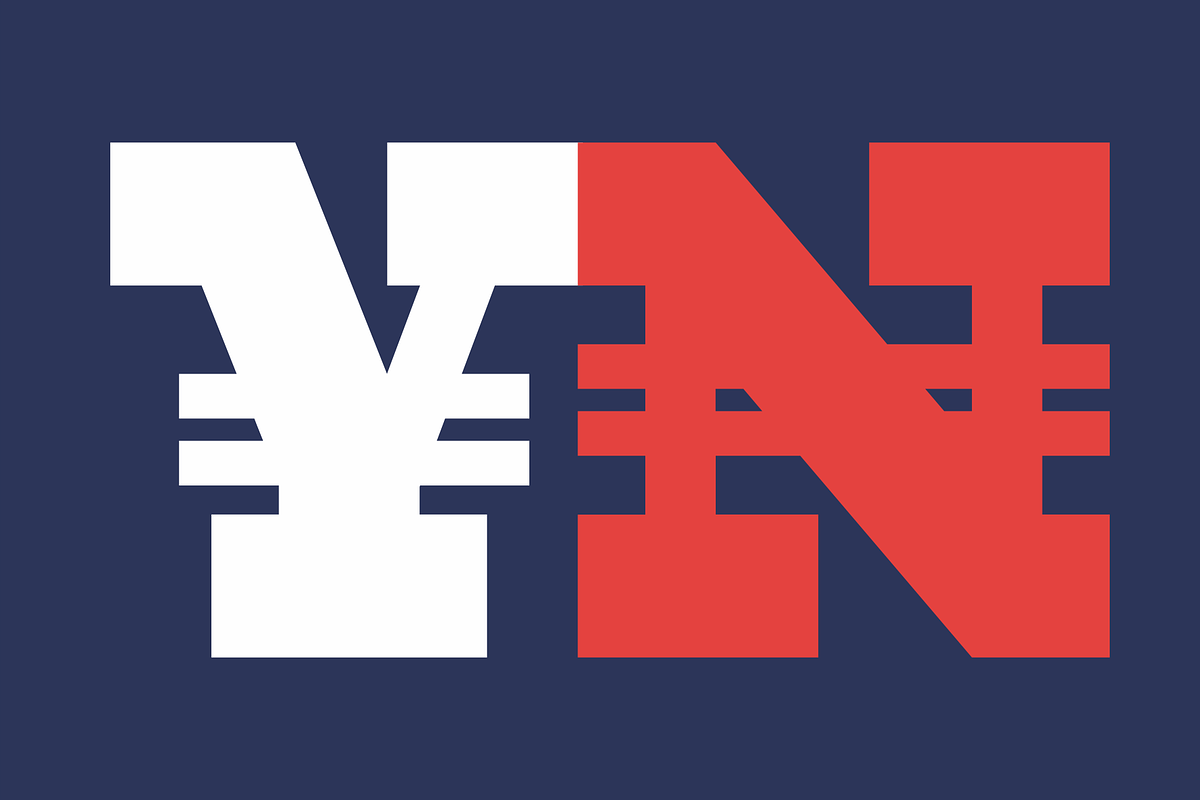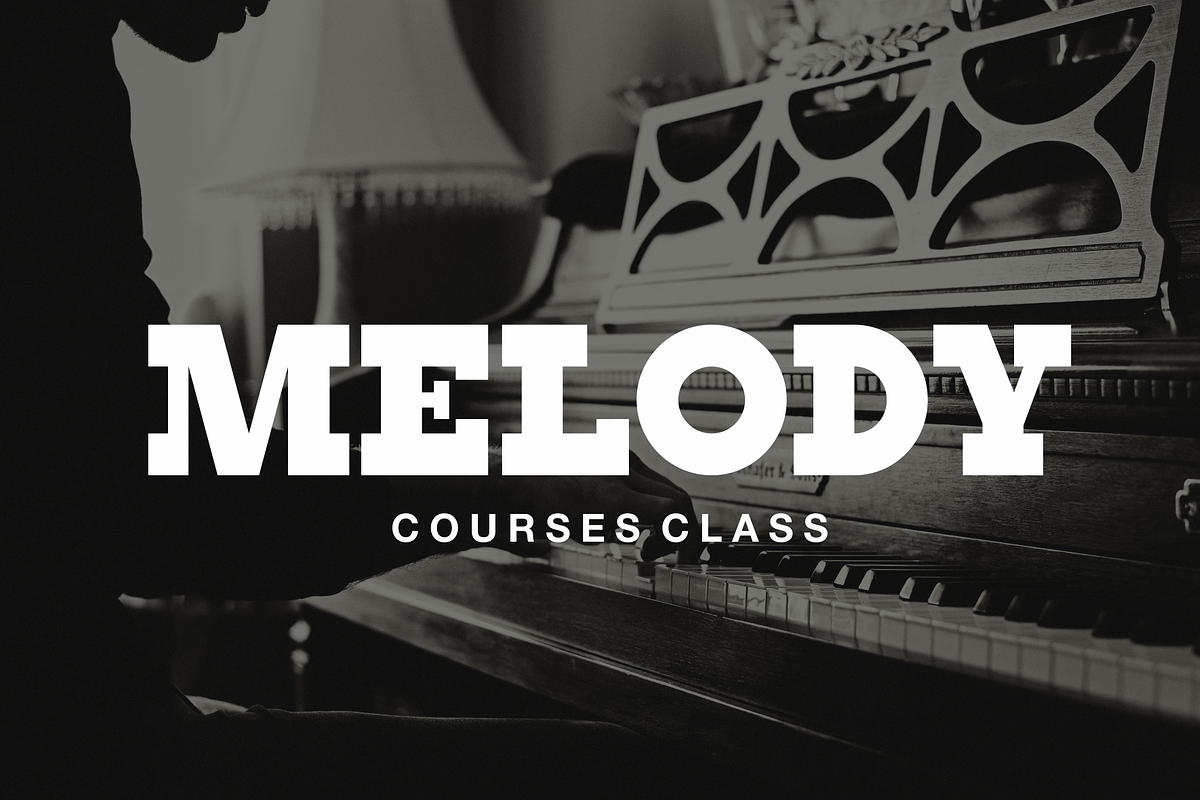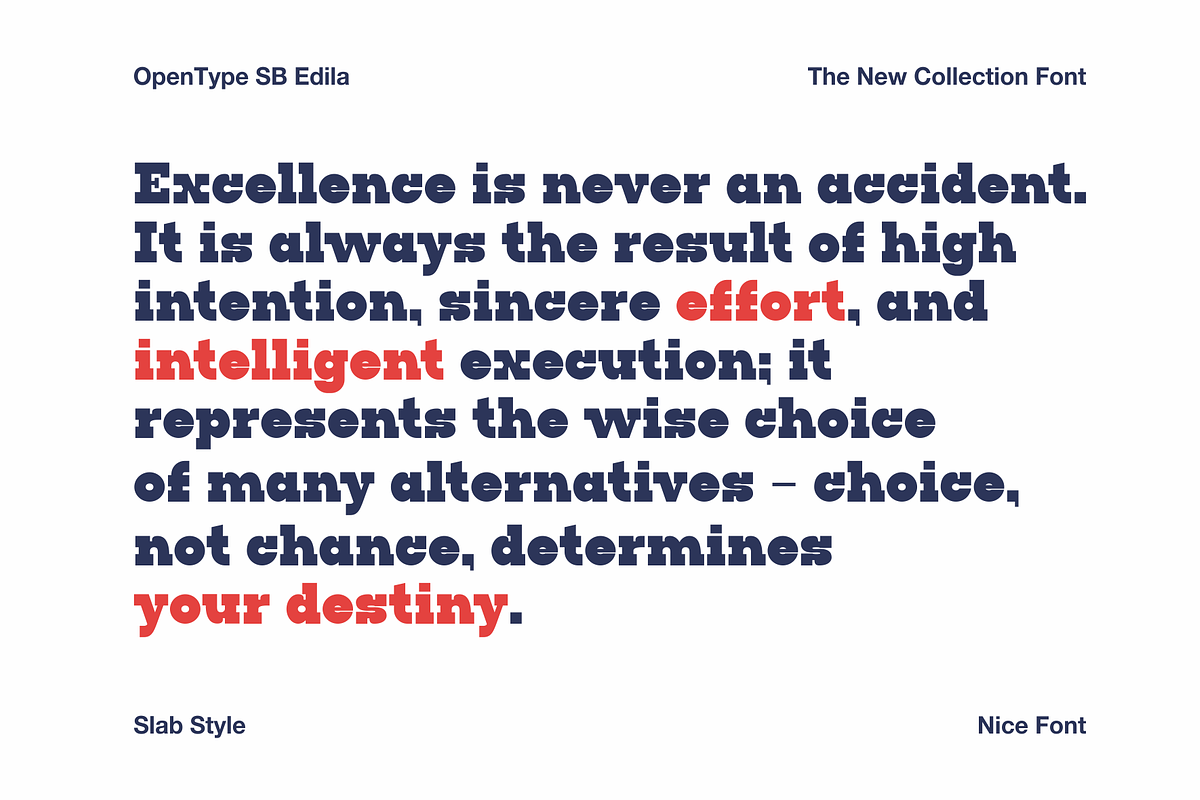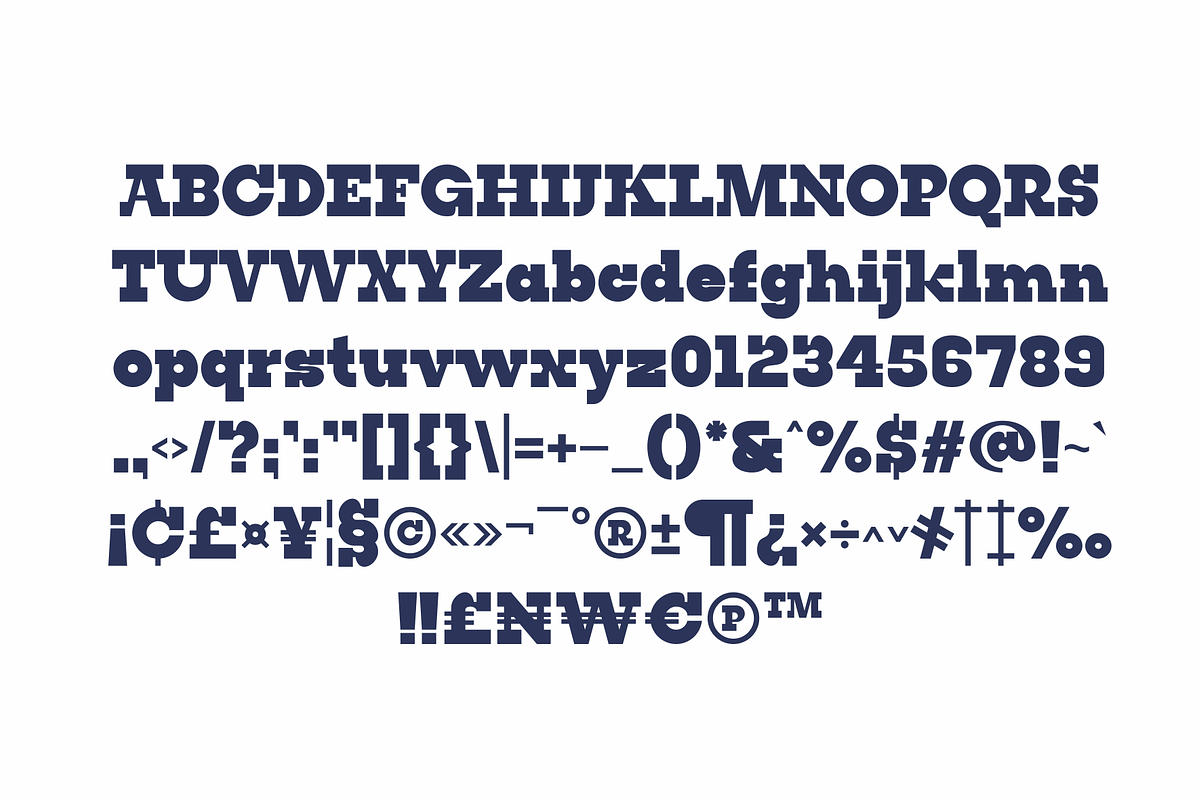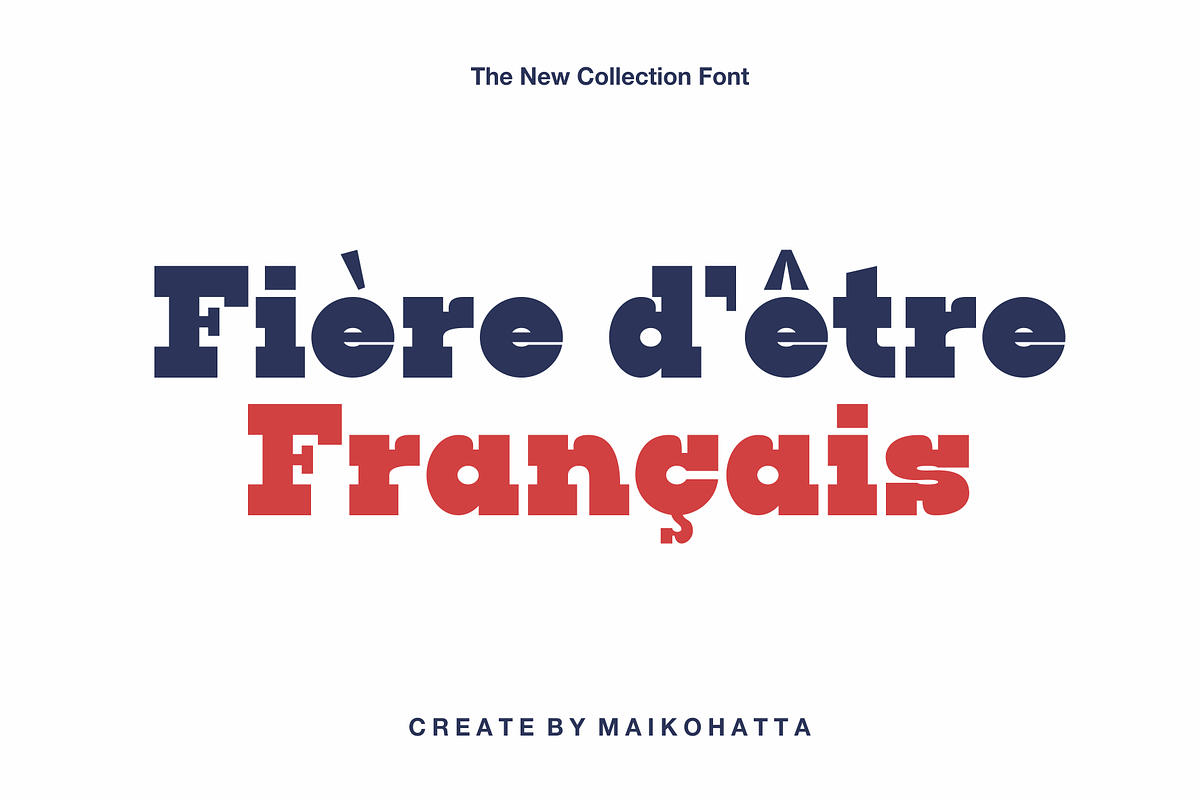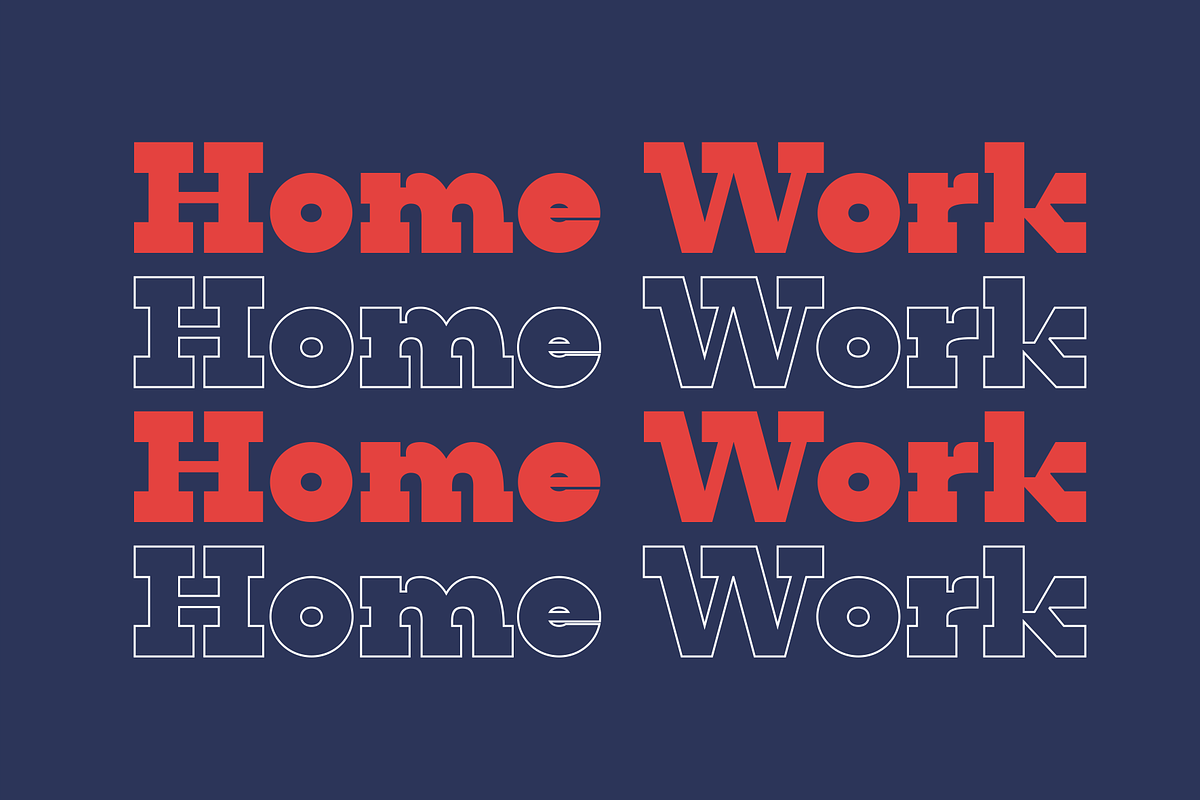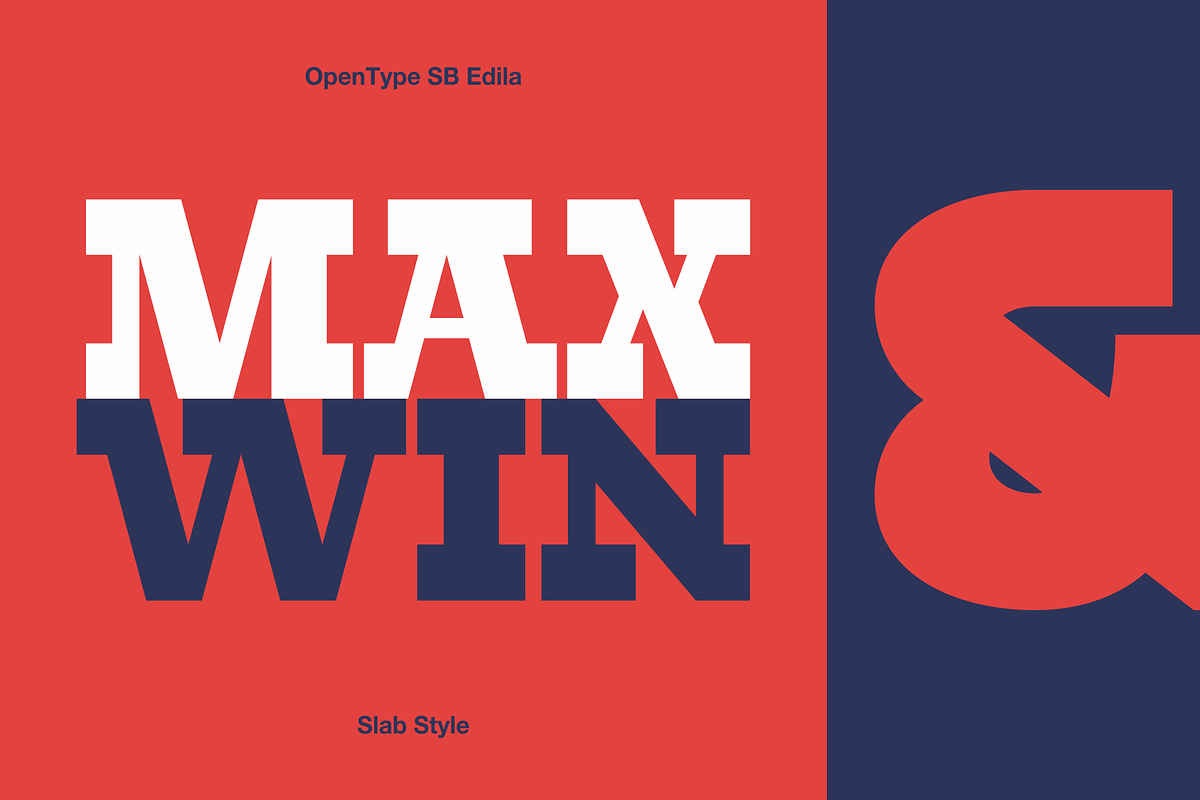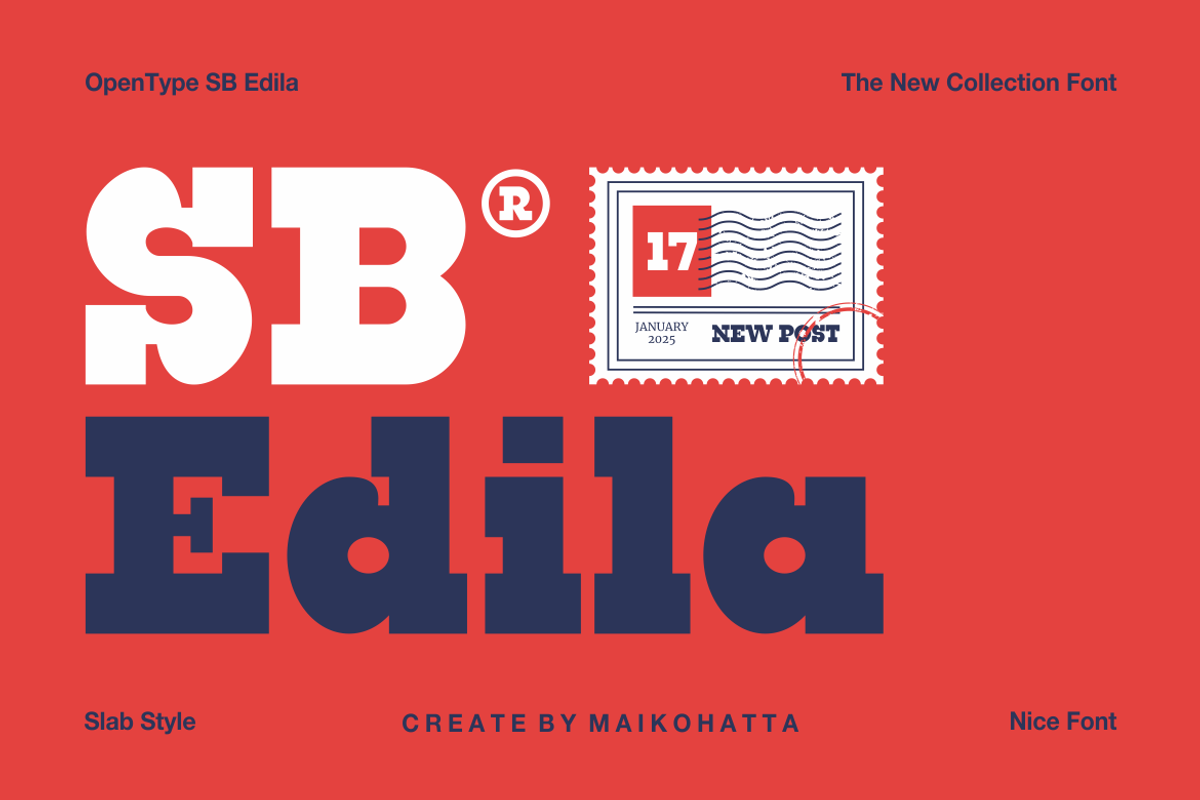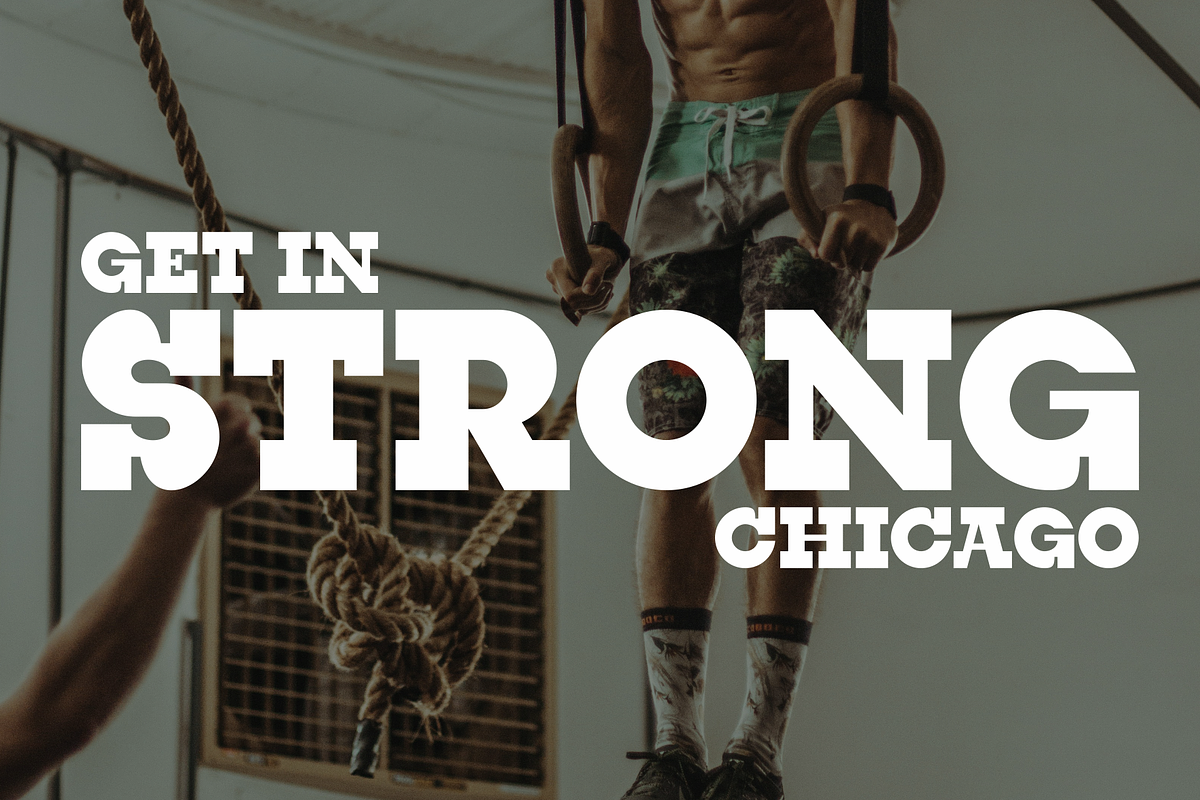
SB Edila - Modern Slab Serif Font
Introducing our new product SB Edila - Modern Slab Serif Font
This font features a balanced proportion of stroke thickness and fineness, creating attractive and easy-to-read visuals. This modern serif style is often characterized by a bold distinction between thick and thin lines, providing a touch that is understated but still stands out.